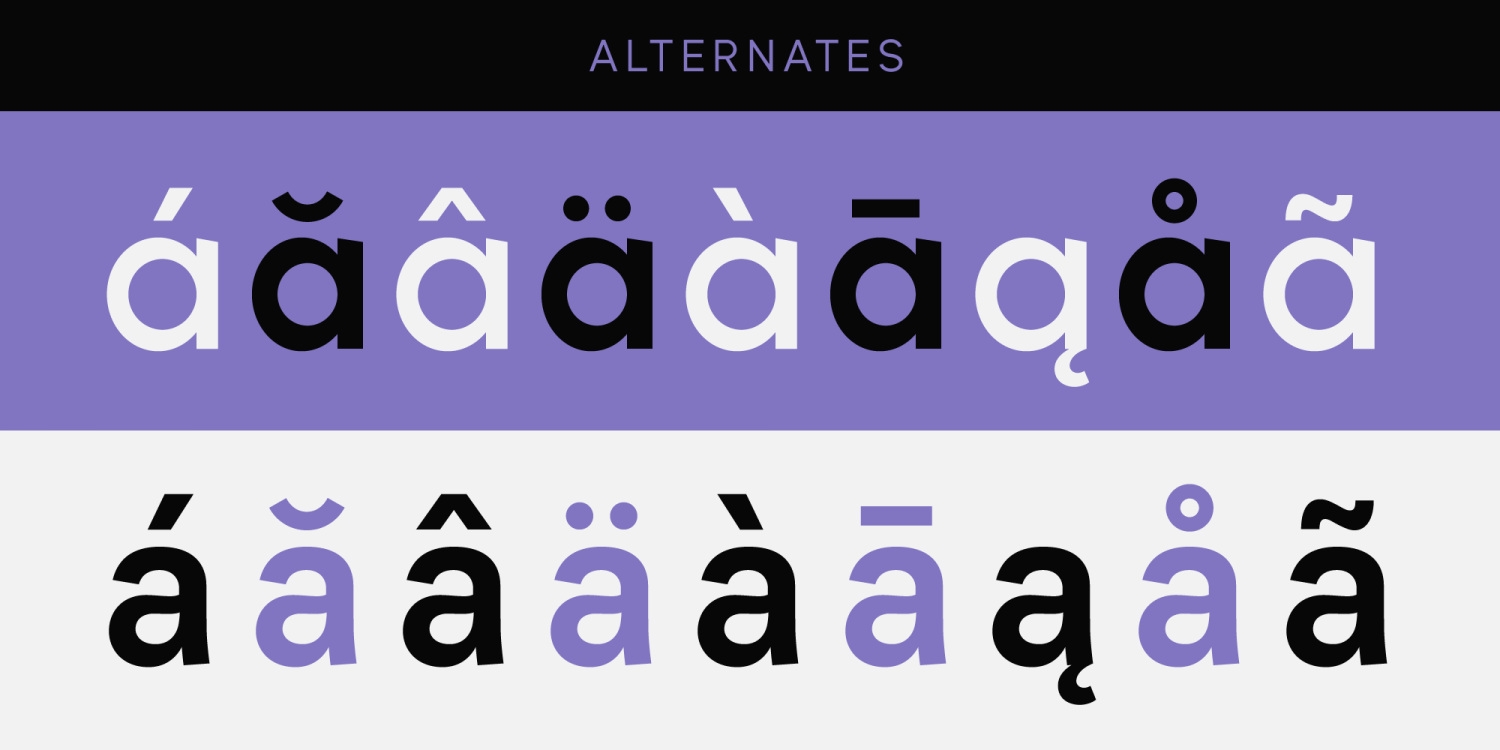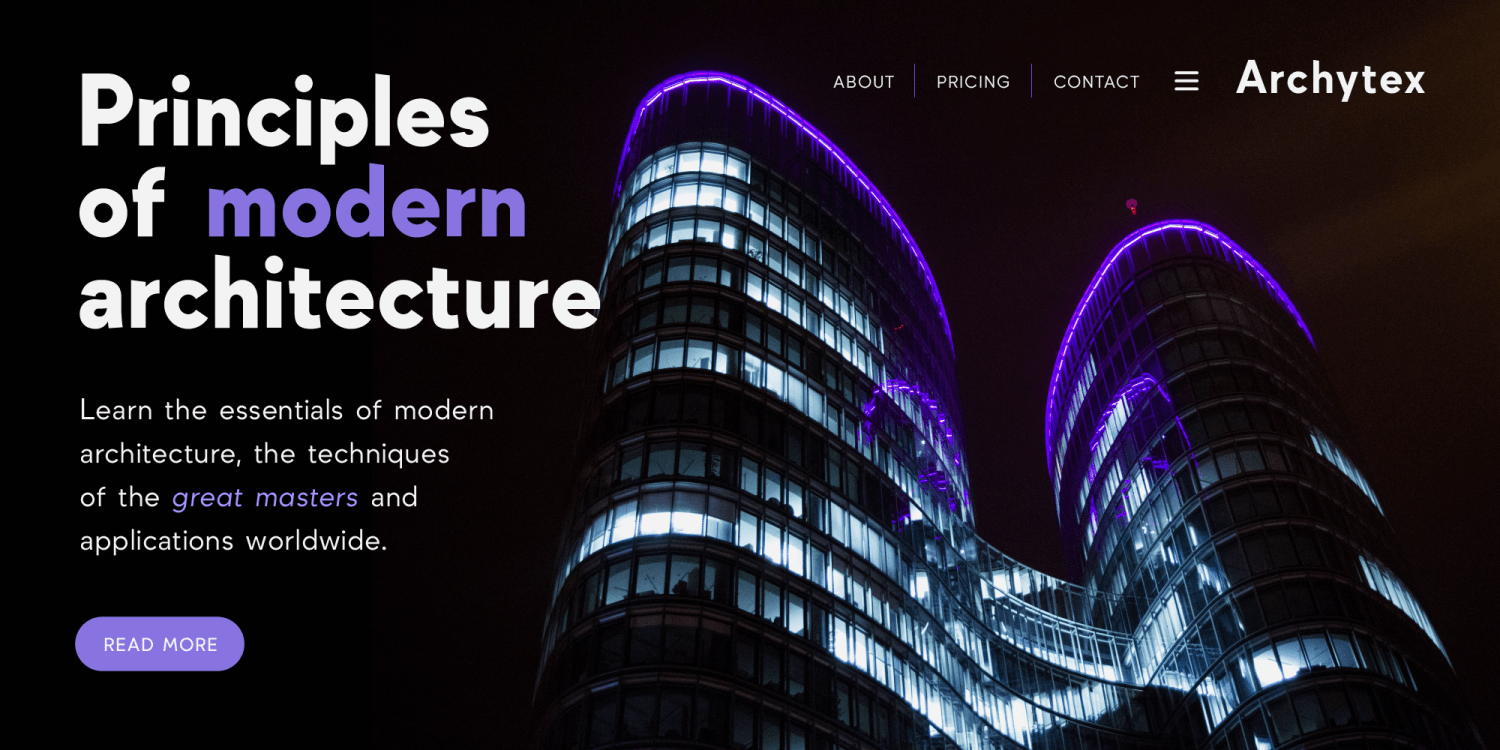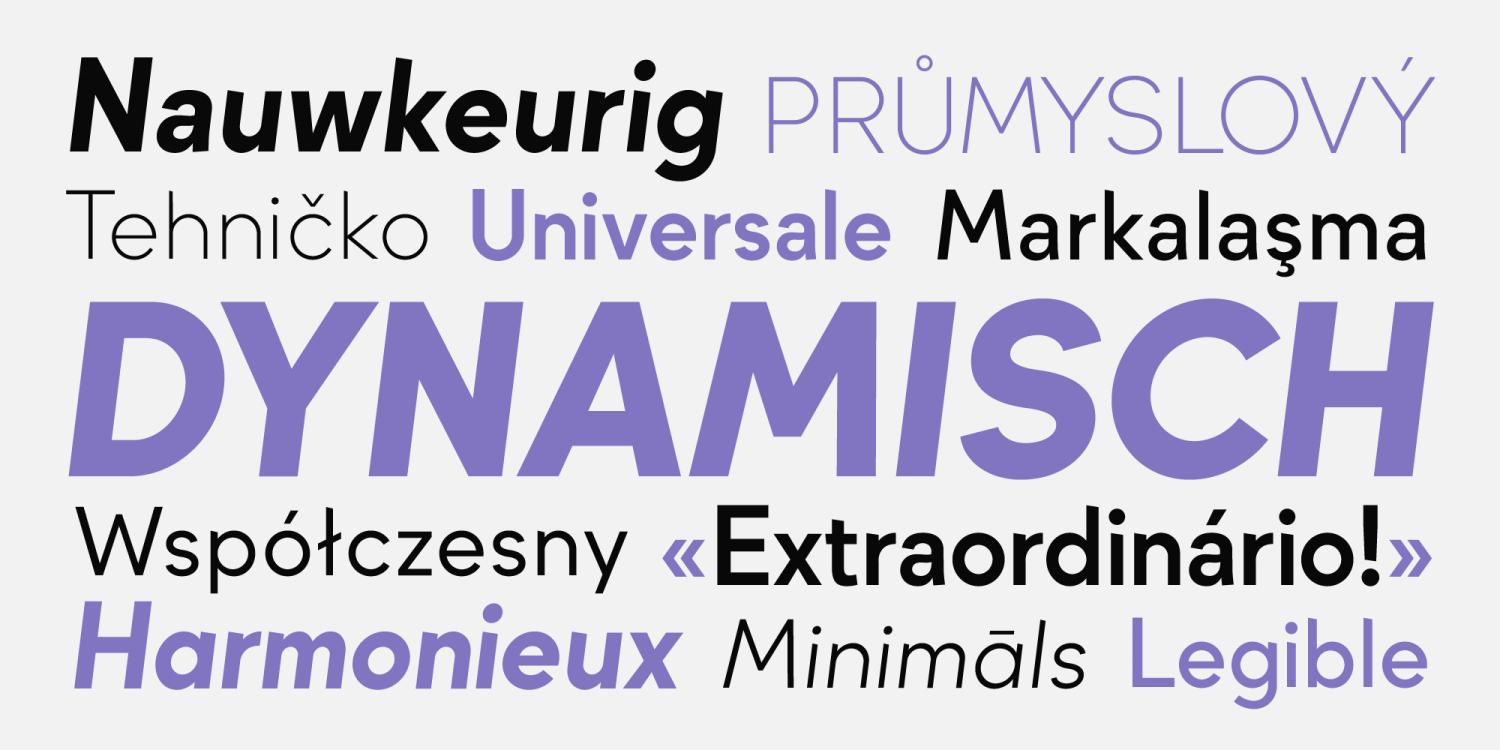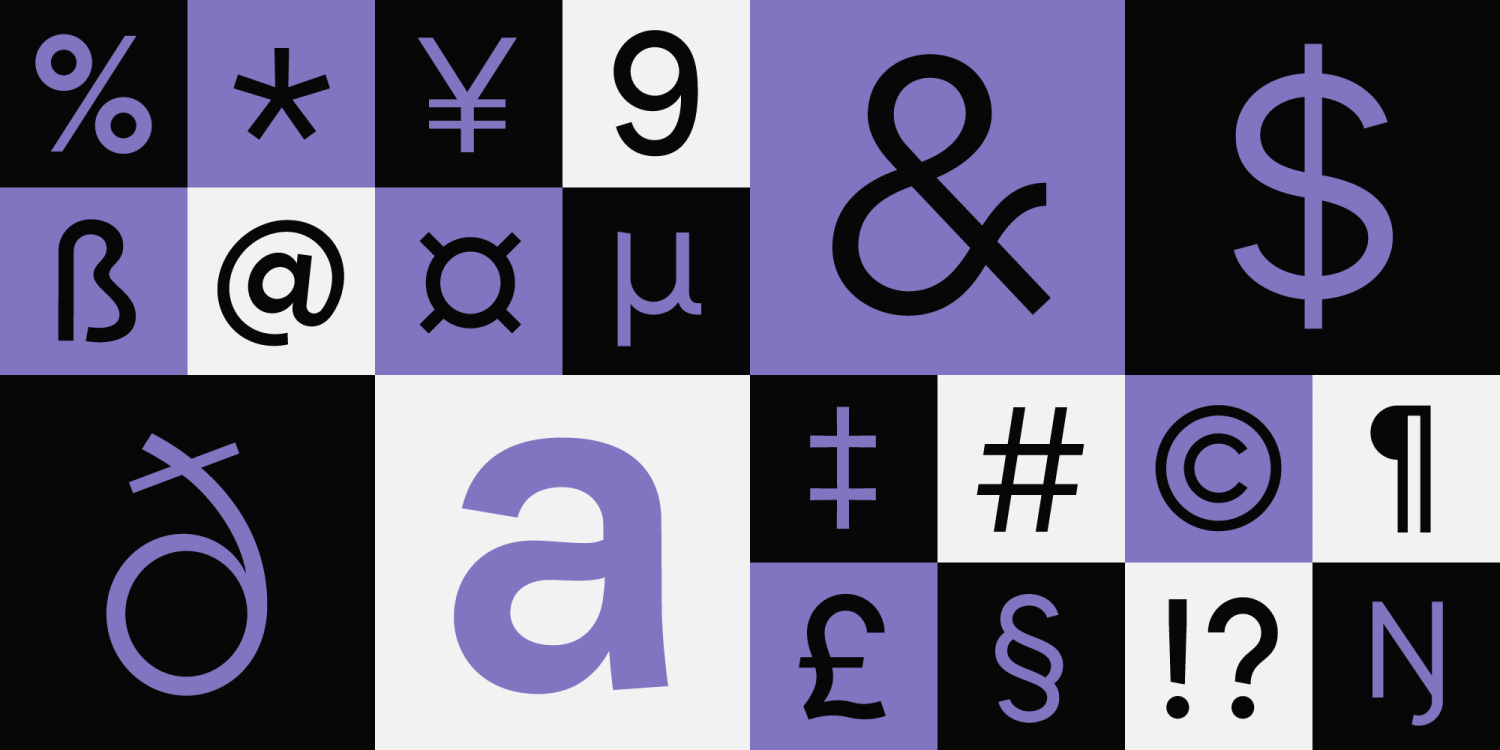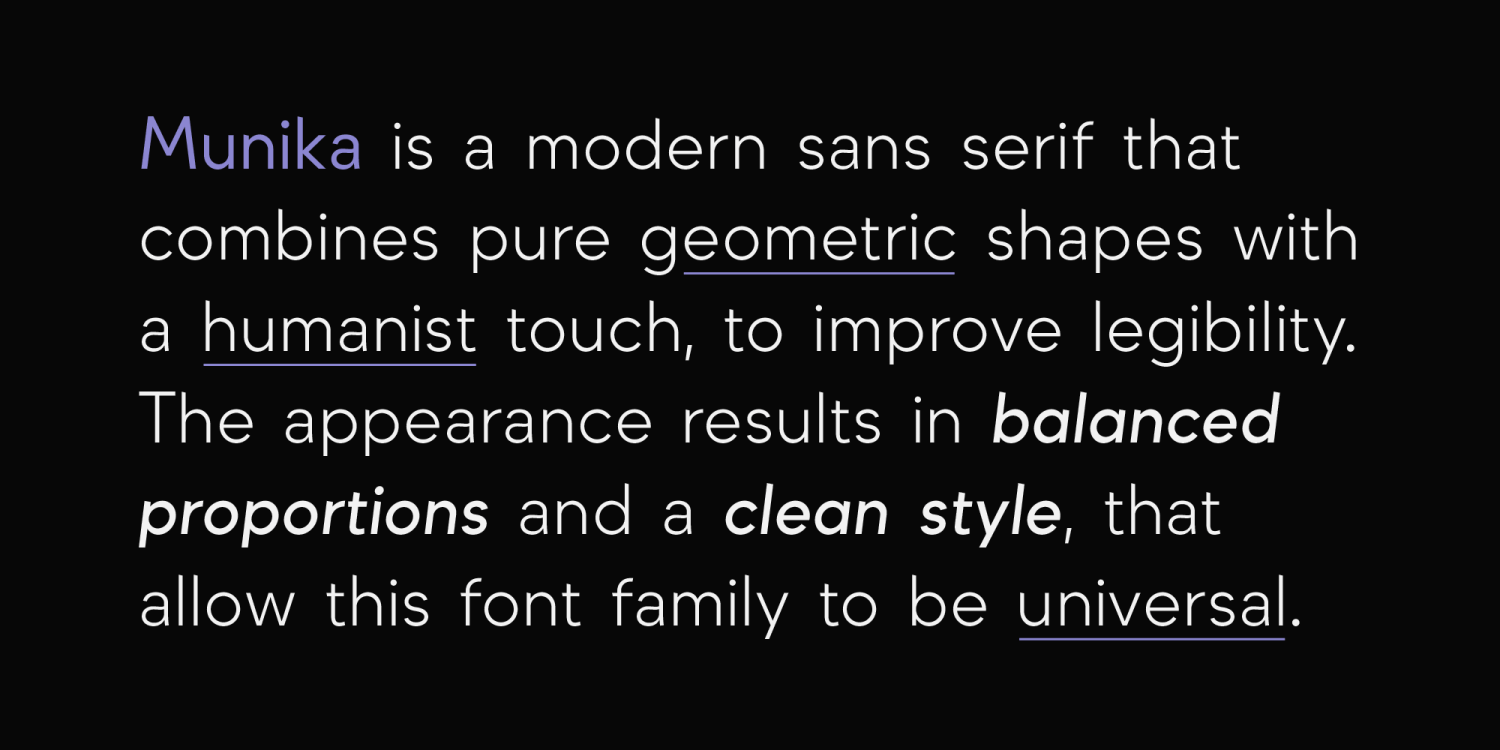
About Munika
Munika is a modern sans serif born from the equilibrium between geometric shapes and humanist details. Its lines were forged with the concept of clarity in mind, to make it the perfectly accessible typeface. This global family comes in 9 weights plus…